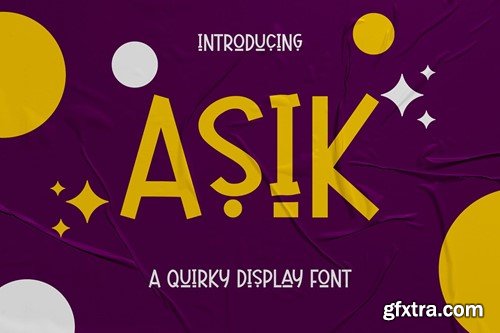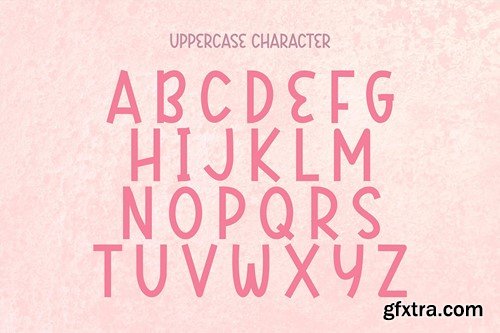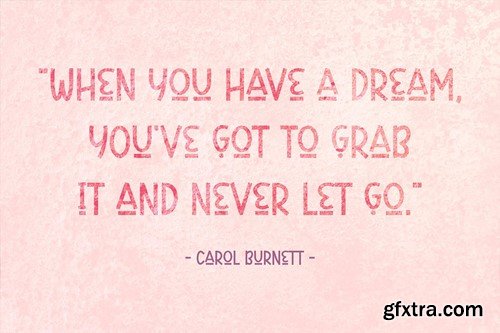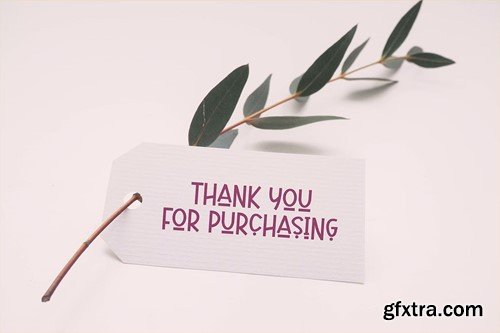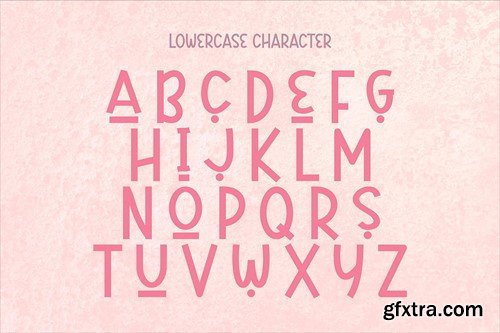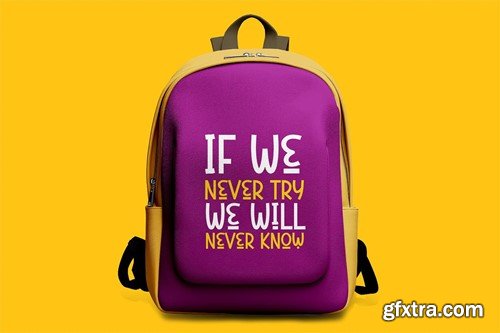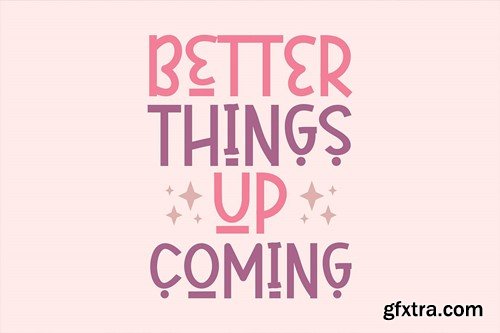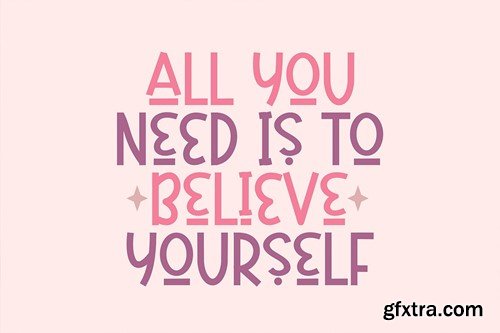
Asik - Quirky Display Font CNH34PA
Asik - Quirky Display Font
The Asik font is a quirky comic display font that is perfect for a variety of uses. This font is available in TTF and OTF formats, so it can be used in a variety of graphic design and social media applications.